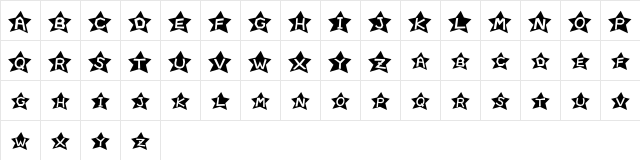
star Regular Free Font
star Regular
Design Context for star
star is a composed and adaptable typeface that performs quietly and consistently across a wide range of design contexts.